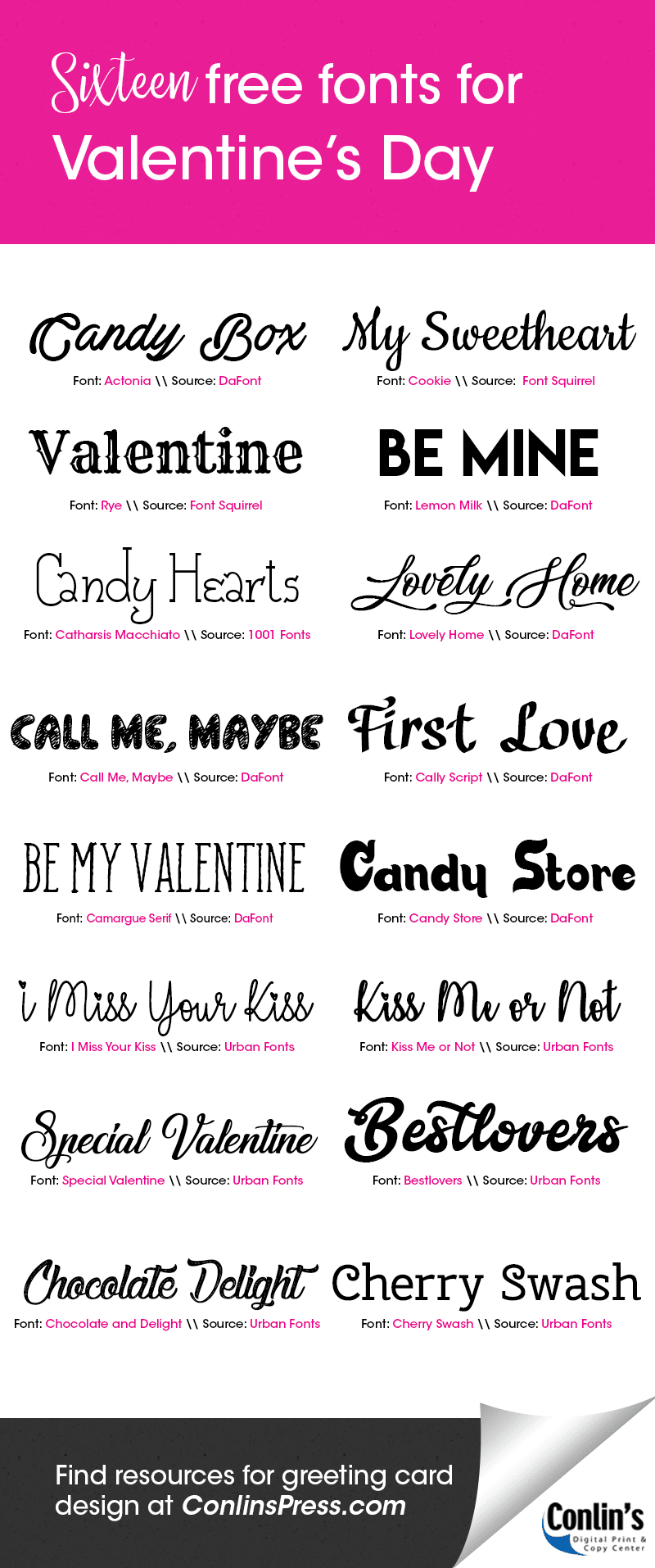
16 Free Fonts for Valentine’s Day
Valentine's Day is coming up, and pretty soon we'll be exchanging candies and printed Valentine's Day cards with friends and significant others. We've compiled sixteen of our favorite fonts that are perfect for your Valentine's Day print projects. Enjoy!